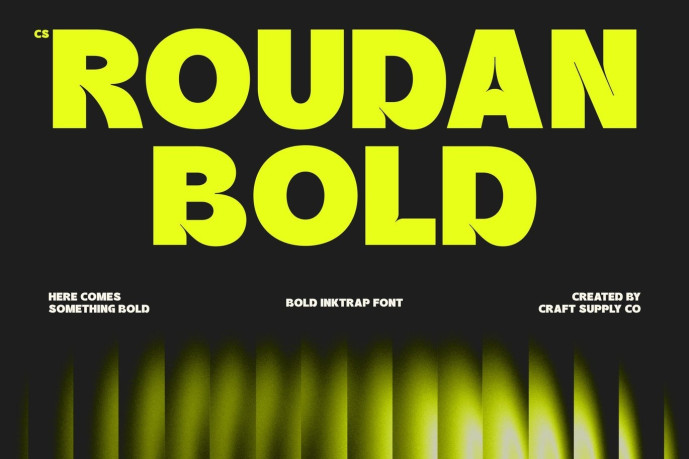
Roudan – Inktrap Font
Designer: Craft Supply Co.
CS Roudan – Bold Sans Serif Font: Where Industrial Precision Meets Playful Futurism Extra Bold Weight with Powerful Geometry This is a bold sans serif font built to make a lasting impression. Featuring an extra bold weight, clean geometric construction, and wide counters, it delivers exceptional visual strength while maintaining excellent readability. Its balanced proportions create typography that feels confident, modern, and highly impactful across a variety of display applications.
Inktrap Details with Rounded Industrial Style Designed with expressive inktrap details and softened by rounded corners, this font combines technical precision with approachable character. The inktraps not only enhance legibility at different sizes but also become a defining visual feature, adding depth and personality to the font. This blend of industrial-inspired geometry and rounded forms creates a distinctive aesthetic that feels both functional and contemporary.
Dynamic, Playful, and Futuristic Character This font creates a unique visual identity that balances power with playful energy. Its futuristic character and urban-inspired personality make it ideal for brands seeking a strong, innovative, and youthful presence. The result is typography that feels dynamic, expressive, and unmistakably modern.
Perfect for Posters, Headlines and Contemporary Design Perfect for headlines, logos, packaging, editorial layouts, posters, advertising campaigns, tech, and modern visual identities. Its bold geometric structure, playful futuristic character, and industrial aesthetic make it ideal for projects that communicate confidence, innovation, and creative energy.
Uppercase and lowercase characters
Numerals and Punctuation (OpenType Standard)
Accents (Supports Multilingual Characters)